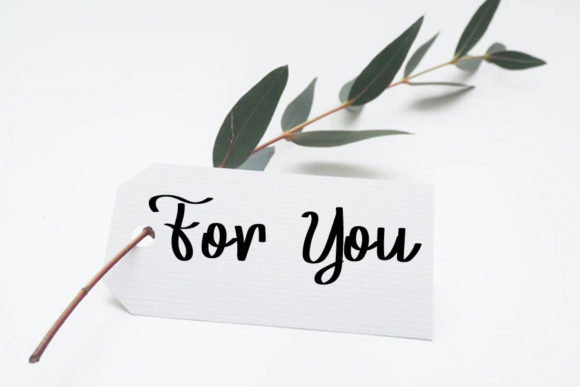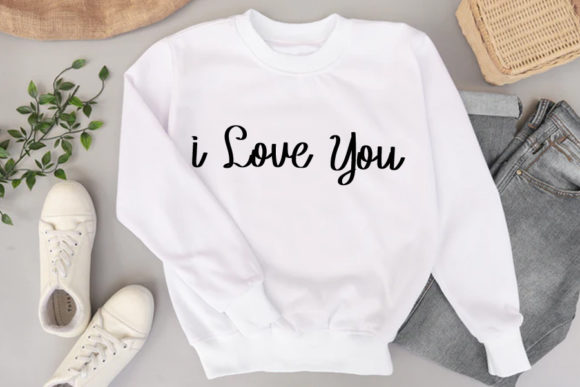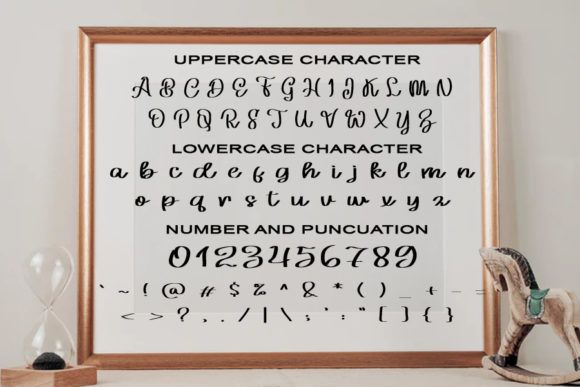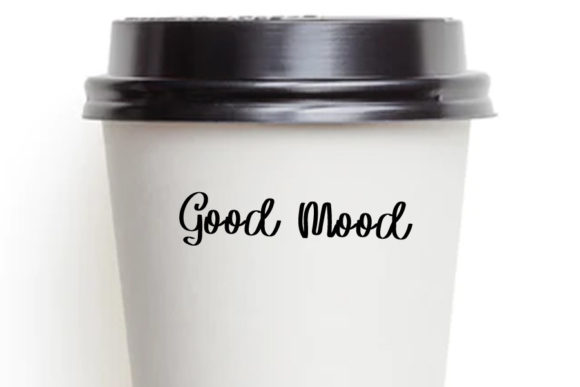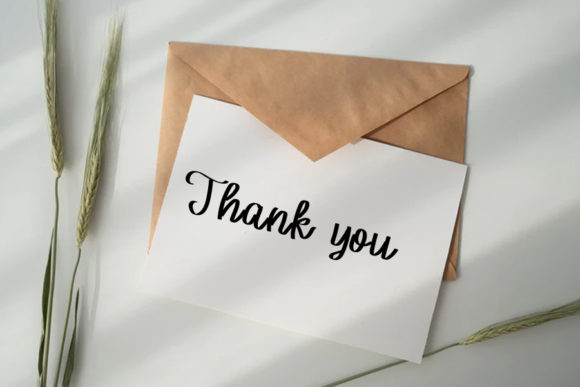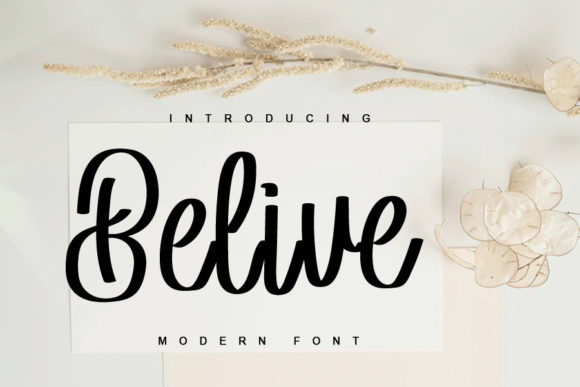
Introducing Belive Font: The Sweet and Delicate Script Font for Luxury Designs
Are you a designer or crafter looking for a font that can add a touch of luxury and elegance to your design projects? Look no further than Belive Font! This sweet, delicate, and flowing script font is perfect for creating stunning designs that exude sophistication and refinement.
What Makes Belive Font Special?
Belive Font features characters that dance along the baseline, creating a beautiful and fluid script that is sure to capture the attention of your audience. The font’s delicate and flowing design makes it perfect for use in a variety of design projects, from wedding invitations and stationery to branding and packaging.
Key Features of Belive Font
- Sweet and delicate design: Belive Font features a beautiful, cursive design that is perfect for creating elegant and sophisticated designs.
- Flowing script: The font’s characters dance along the baseline, creating a fluid and natural-looking script.
- Luxury spark: Belive Font is perfect for adding a touch of luxury and elegance to any design project.
- Versatile: The font is suitable for use in a variety of design projects, from wedding invitations and stationery to branding and packaging.
How to Use Belive Font in Your Design Projects
Belive Font is easy to use and can be incorporated into a variety of design projects. Here are a few ideas to get you started:
- Wedding invitations and stationery: Use Belive Font to create beautiful and elegant wedding invitations, save-the-date cards, and other stationery.
- Branding and packaging: Add a touch of luxury to your brand’s packaging and marketing materials with Belive Font.
- Signage and displays: Use Belive Font to create eye-catching signage and displays for your business or event.
- Digital designs: Belive Font can also be used in digital designs, such as social media graphics, blog headers, and email newsletters.
Tips for Getting the Most Out of Belive Font
Here are a few tips for getting the most out of Belive Font:
- Use it sparingly: Belive Font is a beautiful and elegant font, but it can be overwhelming if used too much. Use it sparingly to add a touch of luxury to your design.
- Pair it with other fonts: Belive Font pairs well with other fonts, such as sans-serif fonts and serif fonts. Experiment with different pairings to find the one that works best for your design.
- Experiment with colors: Belive Font looks beautiful in a variety of colors, from metallic colors like gold and silver to rich jewel tones like emerald green and navy blue.
Belive Font is a beautiful and elegant script font that is perfect for adding a touch of luxury to any design project. With its sweet and delicate design, flowing script, and versatile features, Belive Font is sure to become a favorite among designers and crafters. Whether you’re creating wedding invitations, branding materials, or digital designs, Belive Font is the perfect choice for adding a touch of sophistication and refinement.